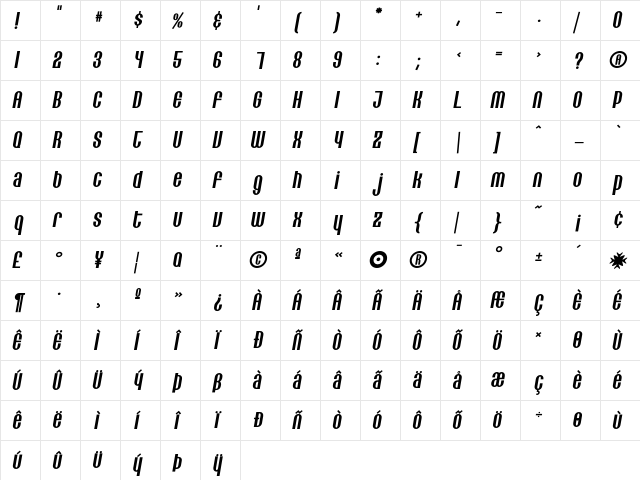
Lithia BoldItalic
Design Context for Lithia Typeface
Lithia offers clean, dependable letterforms without strong stylistic allegiance, making it a practical choice for designers who need flexibility. Its italic angle brings a sense of urgency and motion to the letterforms. Its bold stroke weight gives it real presence on the page.
Pro Tip: Try Lithia for annotation and caption copy alongside an upright companion — the contrast in angle creates a dynamic but ordered typographic system.